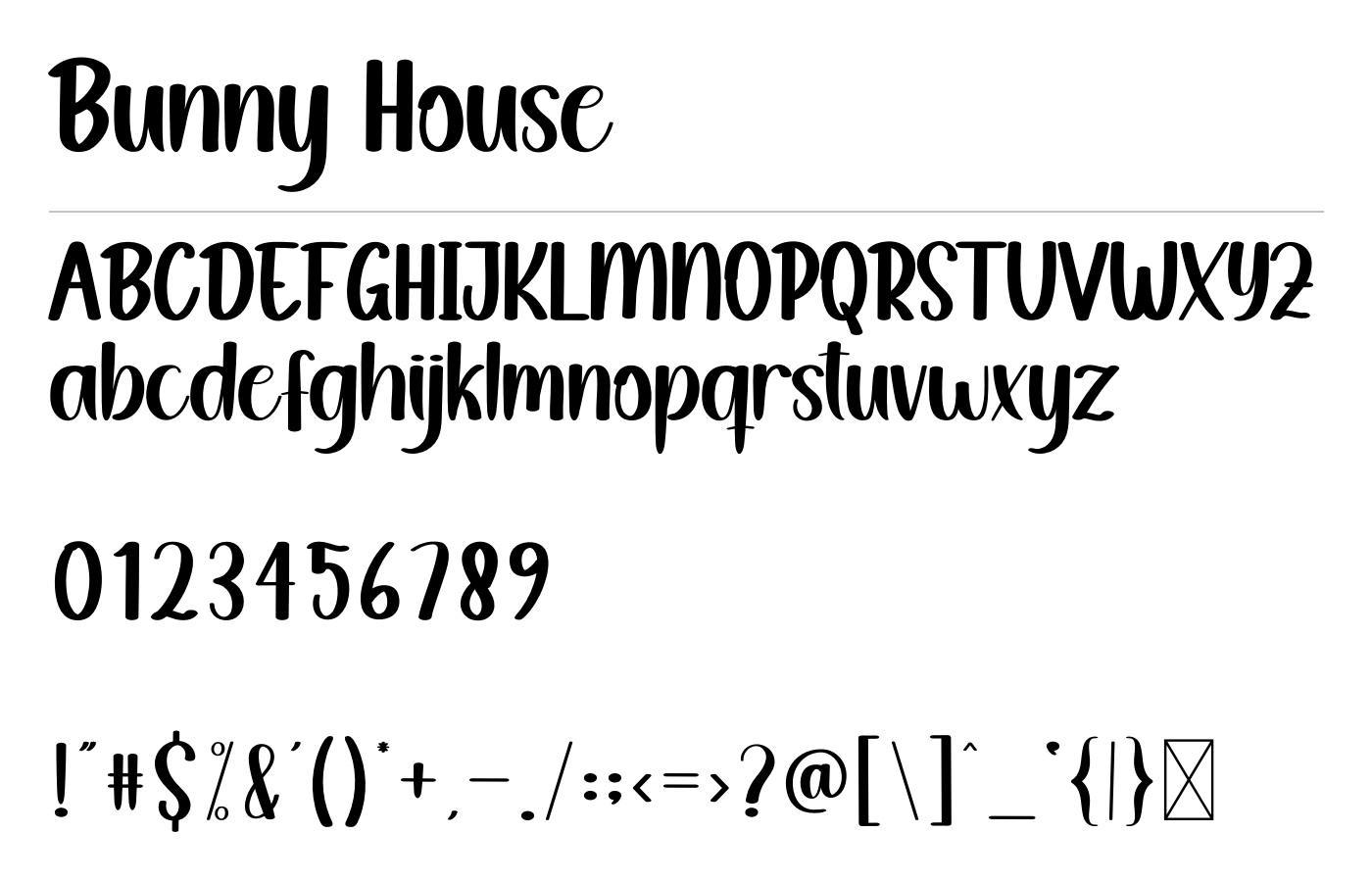
Bunny House is a playful and charming script-inspired sans serif font featuring tall, narrow letterforms with a lively, hand-drawn feel. Its medium weight and smooth, rounded strokes create a friendly and approachable look, perfect for adding personality to casual branding, children’s materials, or inviting headlines. This font works best in creative and fun contexts where warmth and individuality are key.
Bunny House Font